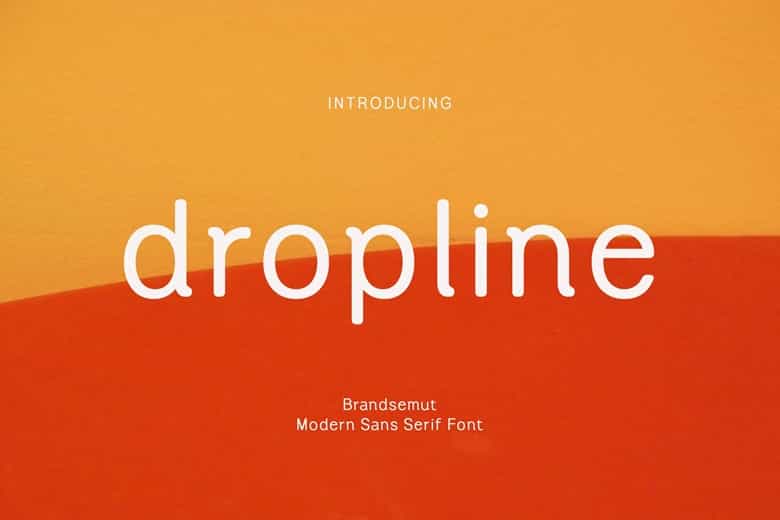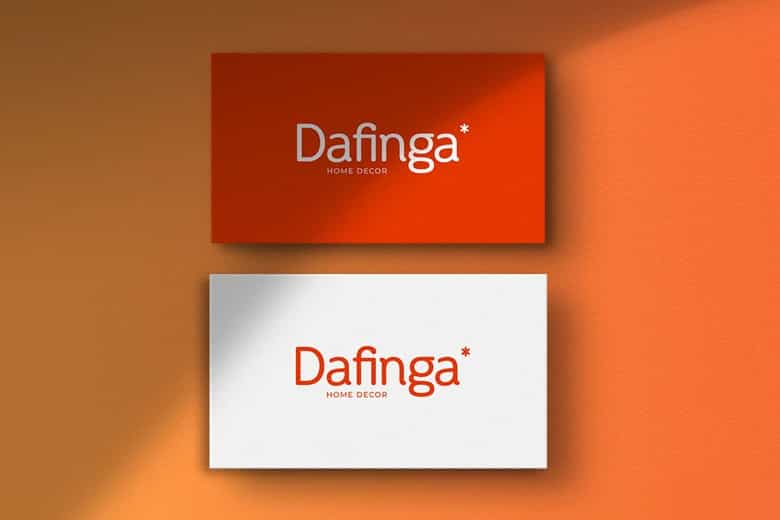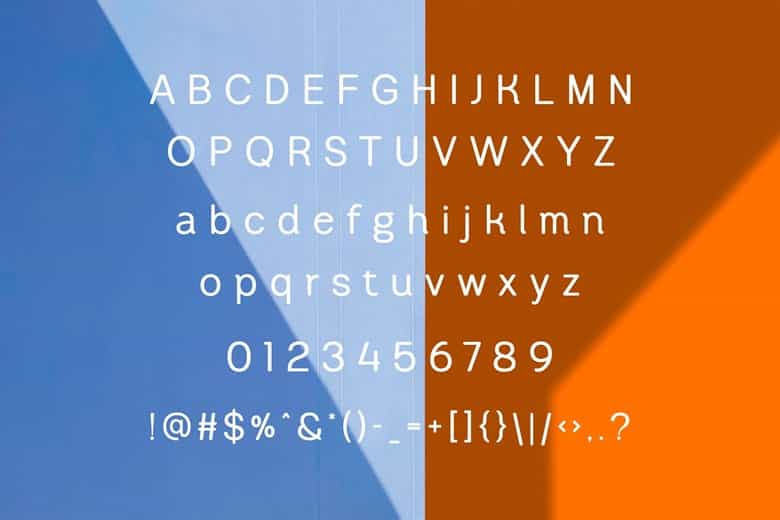
Dropline is a new version sans serif typeface which will suit heading or logos, branding that, magazines, product packaging and invitations etc. Dropline are clean lines and smooth curves which add a certain form of elegance to any project.